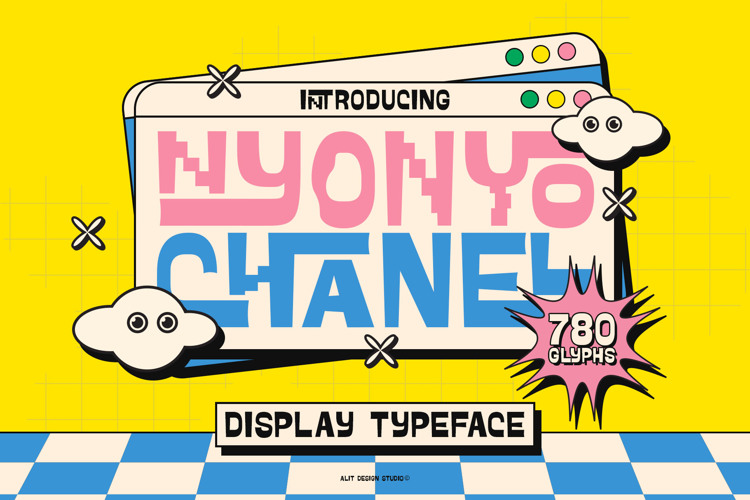
Nyonyo Chanel Font
About Nyonyo Chanel Font
Nyonyo Chanel Typeface Introducing Nyonyo Chanel Typeface: Unleash Your Creativity with a Groovy Twist!
Dive into a world of vibrant expression with the Nyonyo Chanel Typeface, a one-of-a-kind groovy display font that redefines the art of typography. Perfectly blending retro vibes with modern flair, this font is your go-to choice for creating eye-catching designs that captivate and inspire.